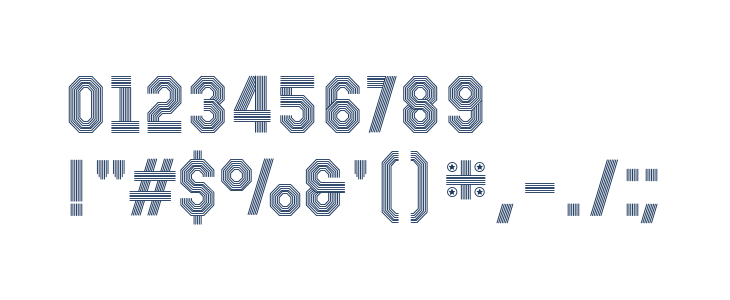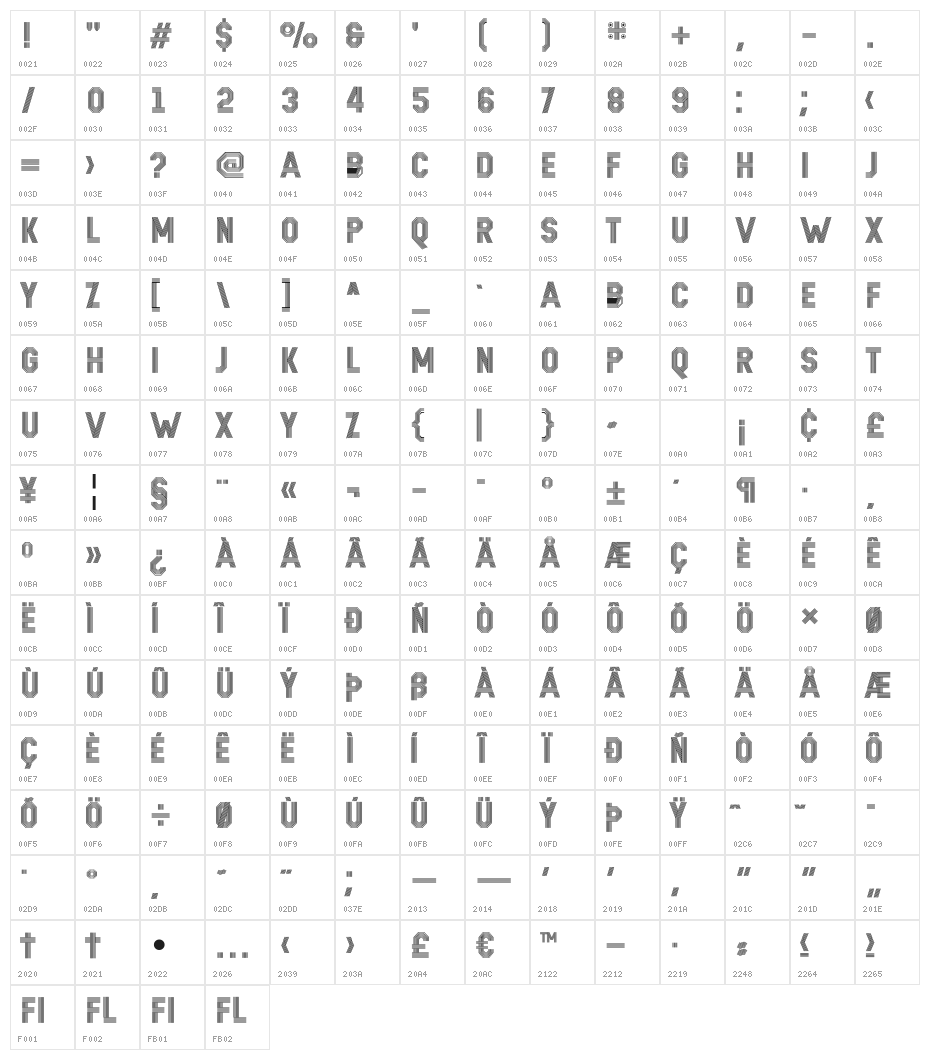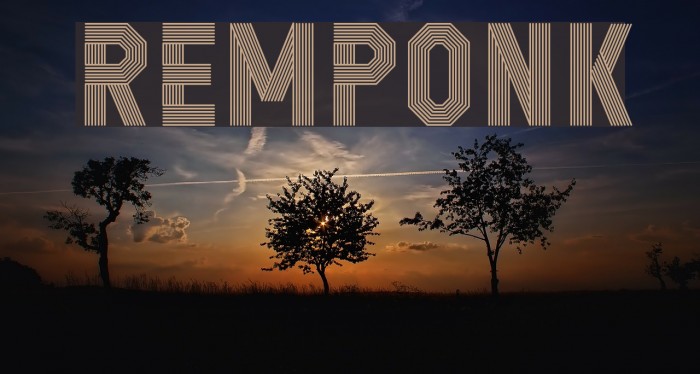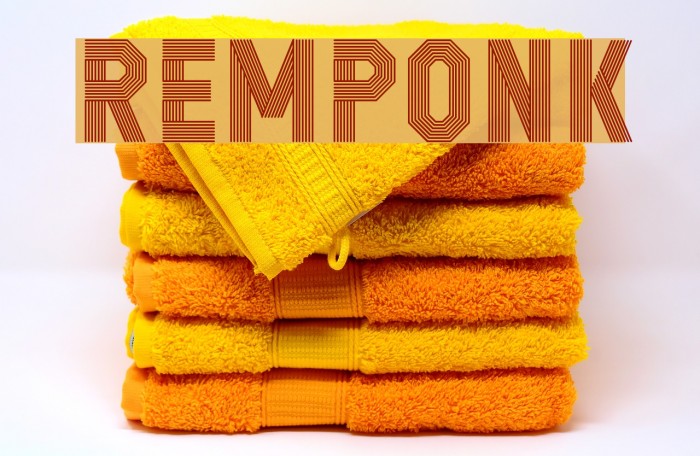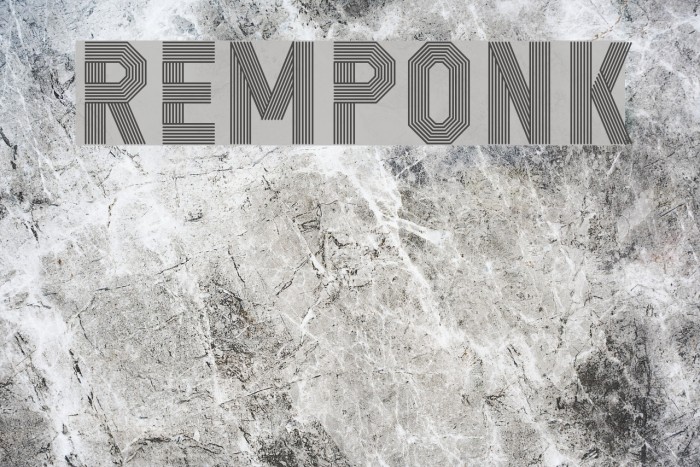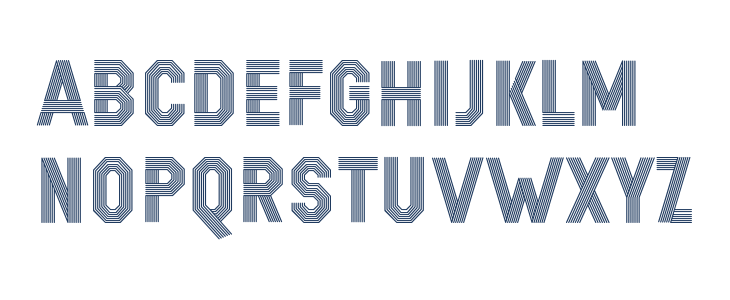
REMPONK Font
This font features a unique, decorative style with multiple parallel lines forming each character, creating a layered and dimensional effect. The uppercase letters, numbers, and special characters all share this intricate design, making it highly distinctive and eye-catching. The geometric and structured appearance gives it a modern yet artistic feel, suitable for projects that require a bold statement. The consistent use of lines across all characters ensures a cohesive look, while the spacing between the lines adds depth and complexity to the overall design.
| Proposed Projects | Ideal for posters, branding, and packaging where a bold, artistic statement is needed. |